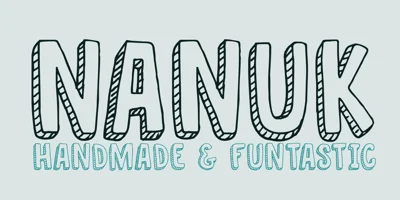
Nanuk Font
Nanuk Font is ideal for Arctic exploration branding, polar expedition marketing, winter sports graphics, cold weather gear packaging, Inuit cultural projects, northern wildlife publications, and rugged outdoor adventure campaigns.
What makes Nanuk Font exciting is its Arctic strength and polar resilience, featuring robust letterforms that capture the essence of northern wilderness while delivering powerful visual endurance and authentic polar authenticity.
The Nanuk Font family includes Light, Regular, Medium, Bold, and Heavy weights, plus Arctic variants and polar alternates that enhance the font's rugged character and northern possibilities.
Nanuk Font embodies the indomitable spirit of Arctic exploration and the resilient strength of polar survival through powerful typography design. This robust typeface captures the harsh beauty of northern landscapes and the unwavering determination of polar expeditions, creating a strong visual language that speaks to adventurers and wilderness enthusiasts who value Arctic exploration, polar resilience, and the compelling appeal of northern wilderness survival. The font's rugged character and polar appearance make it perfect for outdoor gear companies, expedition organizers, and wilderness brands that want to communicate strength, endurance, and the powerful appeal of Arctic adventure.
Outdoor gear companies and expedition organizations consistently choose Nanuk Font for projects that require authentic Arctic credibility and powerful visual impact. The typeface's robust construction and polar personality make it exceptionally effective for cold weather equipment manufacturers, Arctic tour operators, and wilderness survival companies where polar endurance and northern authenticity are paramount. Each character has been designed with Arctic precision to ensure maximum strength across all polar applications and wilderness environments.
The polar advantages of Nanuk Font extend beyond its Arctic appeal to include practical functionality for diverse wilderness applications. The font maintains excellent readability in extreme conditions while delivering the distinctive character that creates memorable polar experiences and connects with audiences seeking authentic Arctic adventure. Its comprehensive character set includes polar symbols and wilderness elements that make it particularly suitable for expedition documentation and Arctic communication.
Cold weather gear manufacturers, Arctic expedition companies, and wilderness survival organizations frequently incorporate Nanuk Font into their brand identity systems because of its ability to instantly convey polar authenticity and Arctic sophistication. The typeface's rugged aesthetic helps establish credibility in competitive outdoor markets while appealing to adventurers who value polar exploration, Arctic survival, and the powerful experiences that come from authentic northern wilderness adventures and polar expedition excellence.